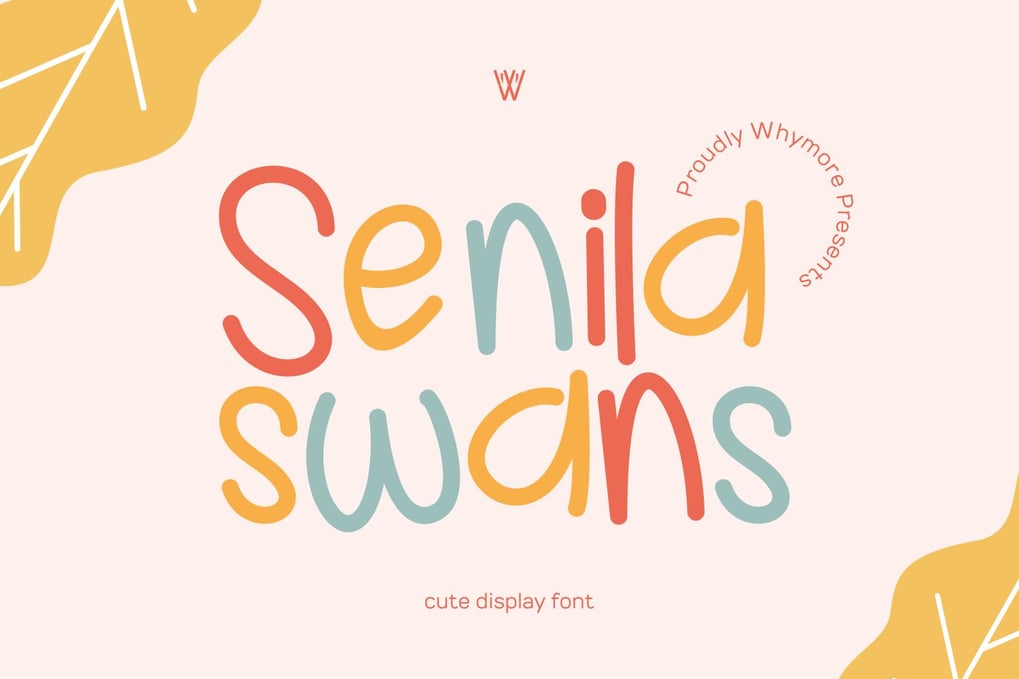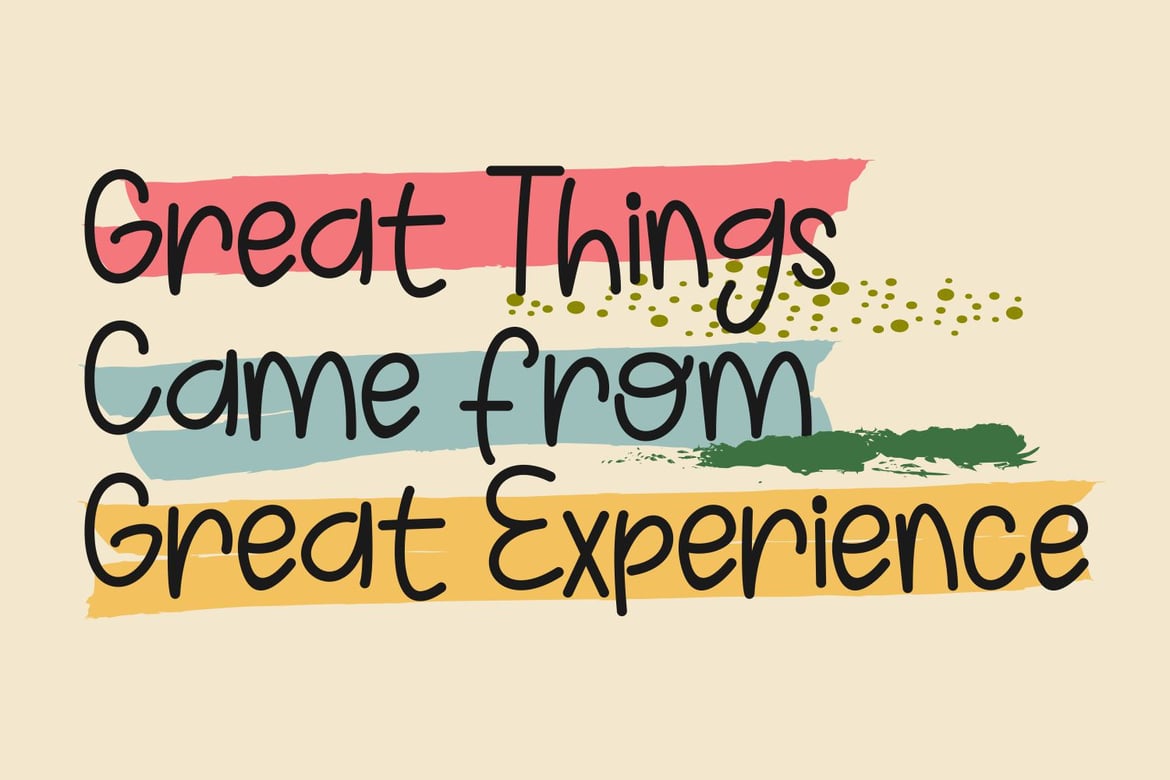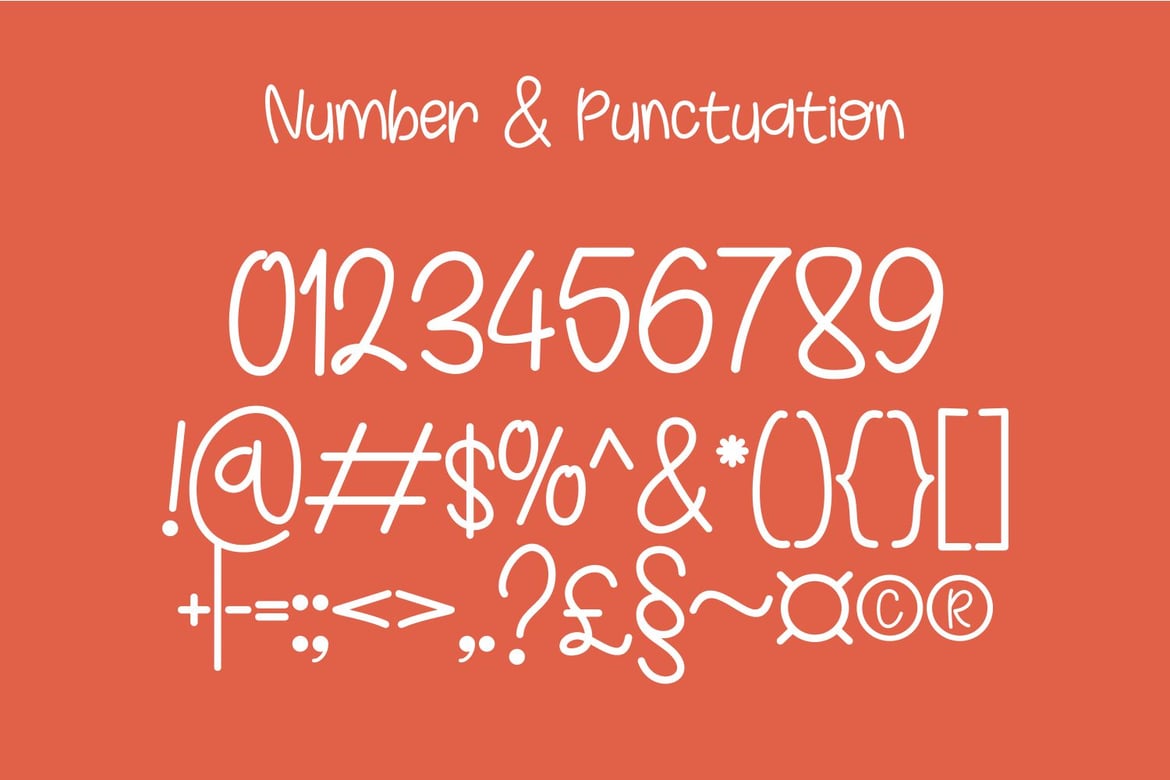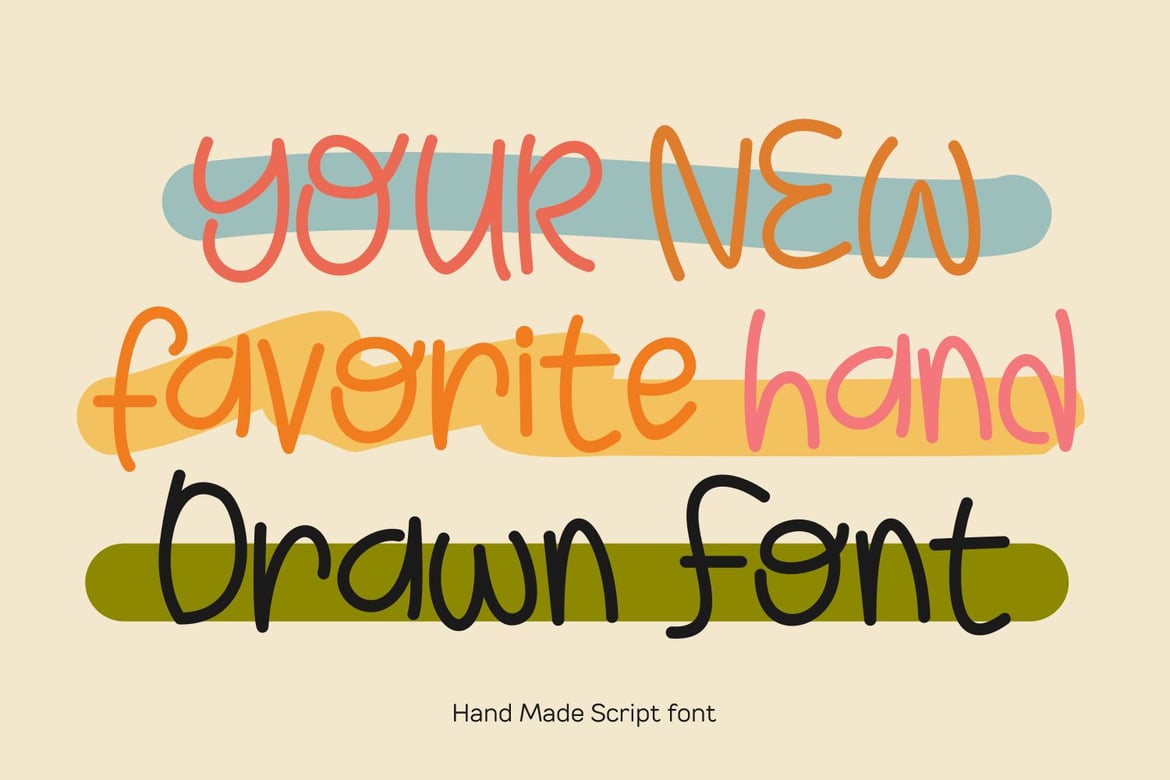
Senila | Script Fonts
This font has a tropical, flexible, Playfull, fun feel. which you can see in the visual fields and lines contained in the Senila font. which is where the basic foundation of this font has a Script font type which of course is very flexible to be used in any field. such as logo design, posters, tourist brochures, pamphlets, valentine, Christmas, Easter letters and posters, as well as presentations for tourist sites.